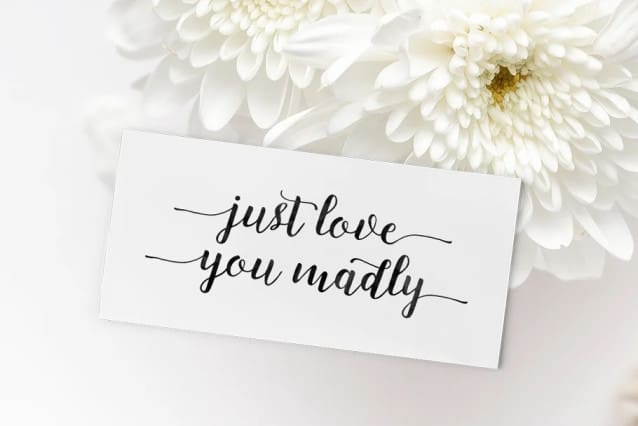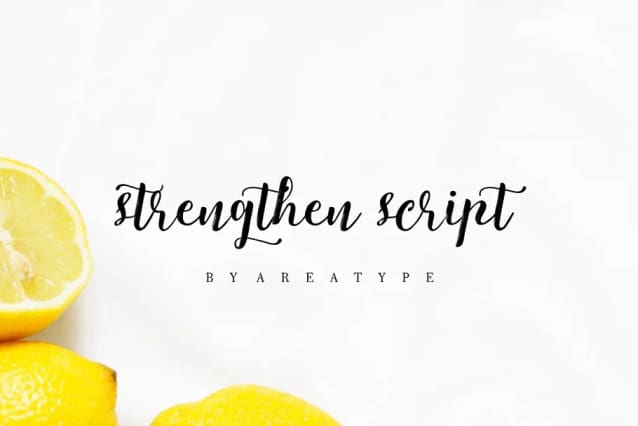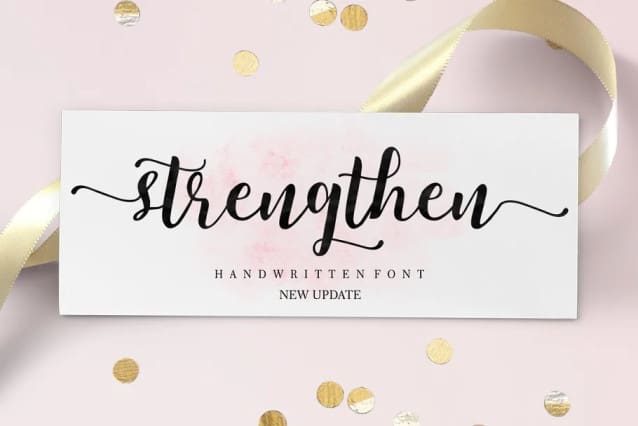
Strengthen Font
Strengthen Font is a lovely calligraphic manuscript modern, I hope you are interested in this font, dynamic and pretty with swashes. Can be used for many purposes. such as title, signature, logo, wedding invitations, letterhead, signage, labels, newsletters, posters, badges, etc.
Strengthen Font features Open type, including the initial and terminal letters, ligatures and International support for most Western languages ​​included.